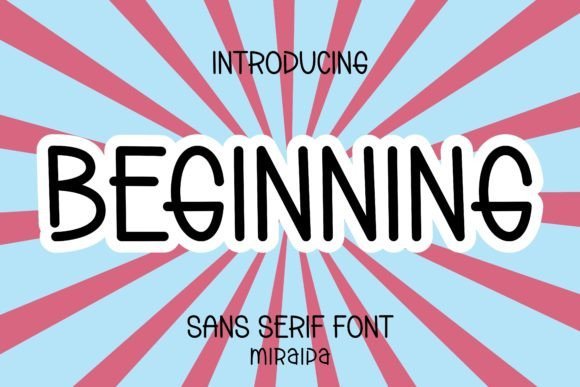
Adding a Personal Touch to Your Creations
Have you ever stumbled upon the perfect font that just makes your DIY project pop? It’s that moment of excitement when everything comes together, and your design truly feels alive. For me, it was when I discovered the Beginning Font – a cute and friendly handwritten sans serif font that’s just begging to be used.
The Beginning Font is designed to bring a touch of warmth and personality to your projects. Whether you’re creating invitations for a wedding, decorating for a party, or crafting a custom poster, this font is sure to add a friendly and approachable feel. With its versatility and charm, it’s no wonder why designers are falling in love with the Beginning Font – and you can too!
Key Features of Beginning Font
- Font Family: Beginning Font is a sans-serif font family designed for clear readability.
- Font Size: Available in 6 different weights, ranging from Light (300) to Bold (700).
- Unique Characteristics: Beginning Font features a clean and modern design, with subtle rounded edges and a high x-height for improved readability.
Design Review: Beginning Font
I recently had the chance to work with the “Beginning Font”, and here’s my honest review.
- The font is highly legible, even at smaller sizes.
- It has a clean and modern design that works well for both digital and print materials.
- The font family includes a range of weights and styles, making it versatile for various design applications.
- It’s great for body text and is easy on the eyes.
- The font lacks a unique personality and may not stand out in crowded designs.
- The italic styles could be improved for better readability.
- The font doesn’t support non-Latin scripts, which may be a limitation for designers working with multilingual content.
The “Beginning Font” is a solid, dependable choice for designers who need a clean and legible font for body text. While it may not excel in terms of uniqueness or versatility, it’s a great option for projects where a straightforward, easy-to-read font is necessary. With some improvements to the italic styles and support for non-Latin scripts, this font could become a go-to choice for many designers.
Beginning Font Practical Application Guide
For optimal results, use the “Beginning Font” in combination with a clear and concise design. It’s ideal for creating titles, headings, and short paragraphs. Use it in digital marketing materials, such as social media graphics, email campaigns, and websites.
Alternatives to “Beginning Font” for Designers
Open Sans is a popular sans-serif font designed by Steve Matteson. It is clean, modern, and highly legible, making it suitable for body text and headings. When to use: For digital products, websites, and mobile applications where a clean and simple design is required.
Comparison to Beginning Font: Open Sans is more modern and versatile than Beginning Font, with a larger character set and better support for various languages.
Lato is a sans-serif font designed by Łukasz Dziedzic. It has a clean and elegant design, making it suitable for headings and body text. When to use: For corporate designs, branding, and marketing materials where a professional and sophisticated look is required.
Comparison to Beginning Font: Lato is more elegant and sophisticated than Beginning Font, with a larger character set and better support for various languages.
Monterssor is a sans-serif font designed by Julieta Ulanovsky. It has a geometric design, making it suitable for headings and body text. When to use: For urban and industrial designs, branding, and marketing materials where a strong and modern look is required.